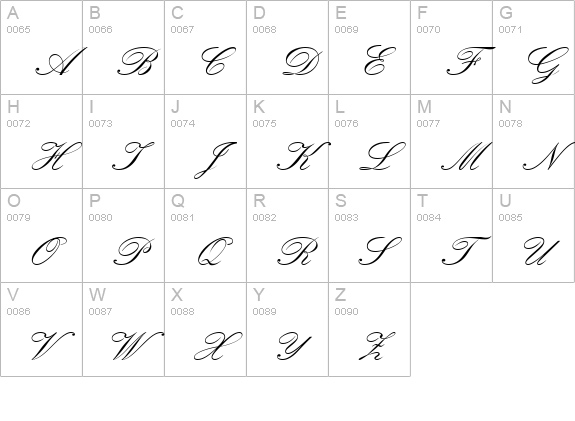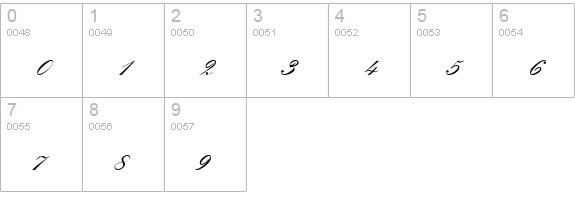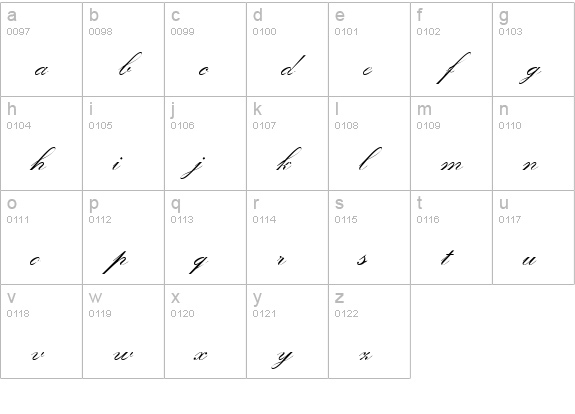
Quill Script SSi Bold Font Details
Quill Script SSi Bold is a strong, high-contrast variant in the Quill typeface family \xE2\x80\x94 well suited to headlines, attention-grabbing titles, and strong calls-to-action.
Quill Script SSi Bold font is a stunning and expressive typeface that exudes elegance and sophistication. Its bold and fluid strokes emulate the graceful movements of a calligrapher's pen, creating a truly captivating visual experience. This font is perfect for adding a touch of sophistication to any design project, be it a logo, a wedding invitation, or a headline for a magazine spread. Its versatility allows it to seamlessly blend into various design styles, from classic and traditional to modern and contemporary. The Quill Script SSi Bold font is not only visually appealing but also incredibly functional. Its legibility ensures that every character is easily distinguishable, making it a reliable choice for both print and digital media. What sets Quill Script SSi Bold font apart is that it is freely available to download at FontsMarket.com. This means that designers and creatives can effortlessly access and incorporate this extraordinary font into their projects, without any financial constraints. Whether you're a professional designer or a hobbyist, Quill Script SSi Bold font is a must-have in your font collection. Its timeless beauty and accessibility make it a valuable asset for any creative endeavor. So don't miss out on the opportunity to elevate your designs with this remarkable typeface - download Quill Script SSi Bold font today at FontsMarket.com and unlock endless possibilities.